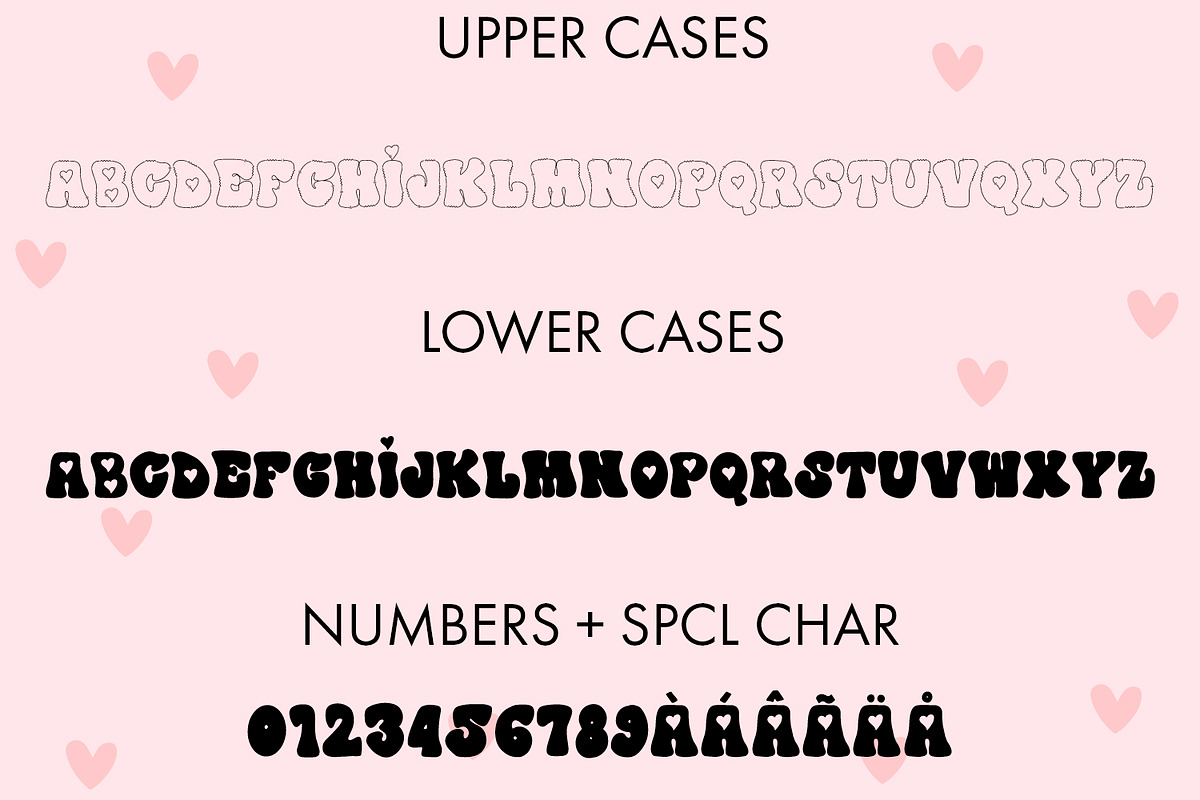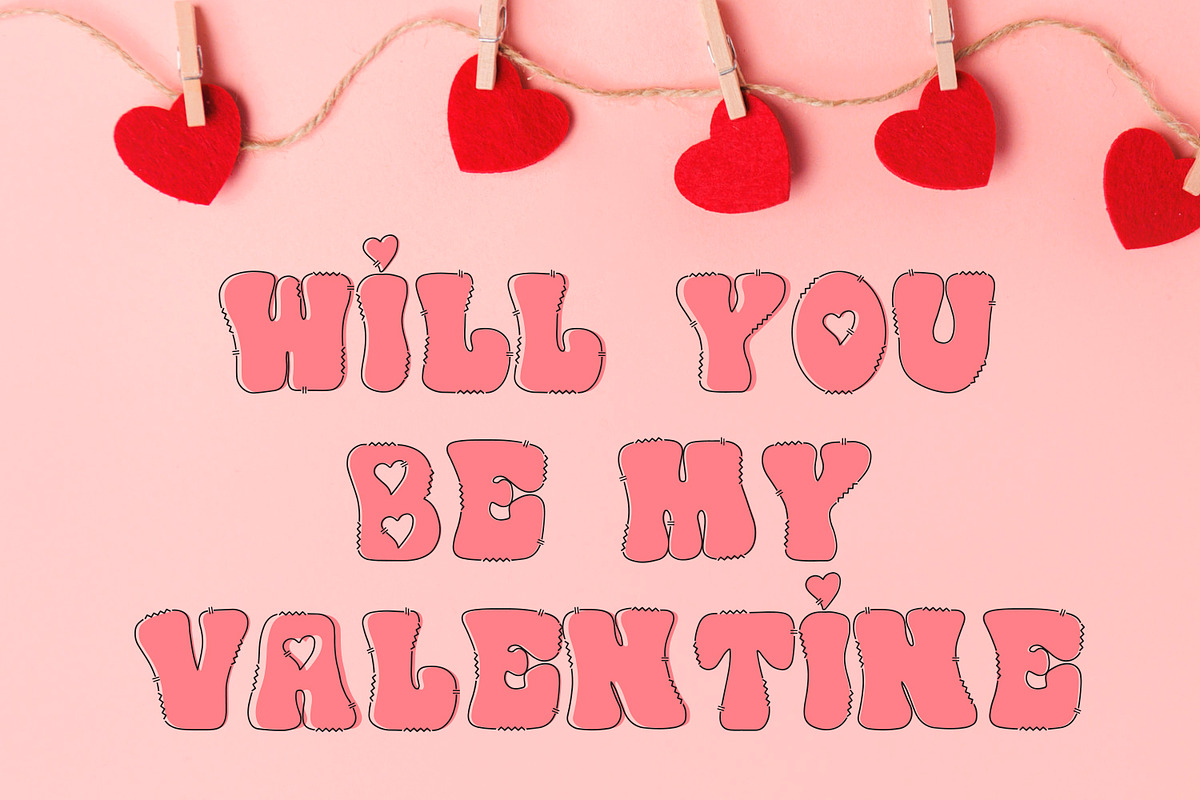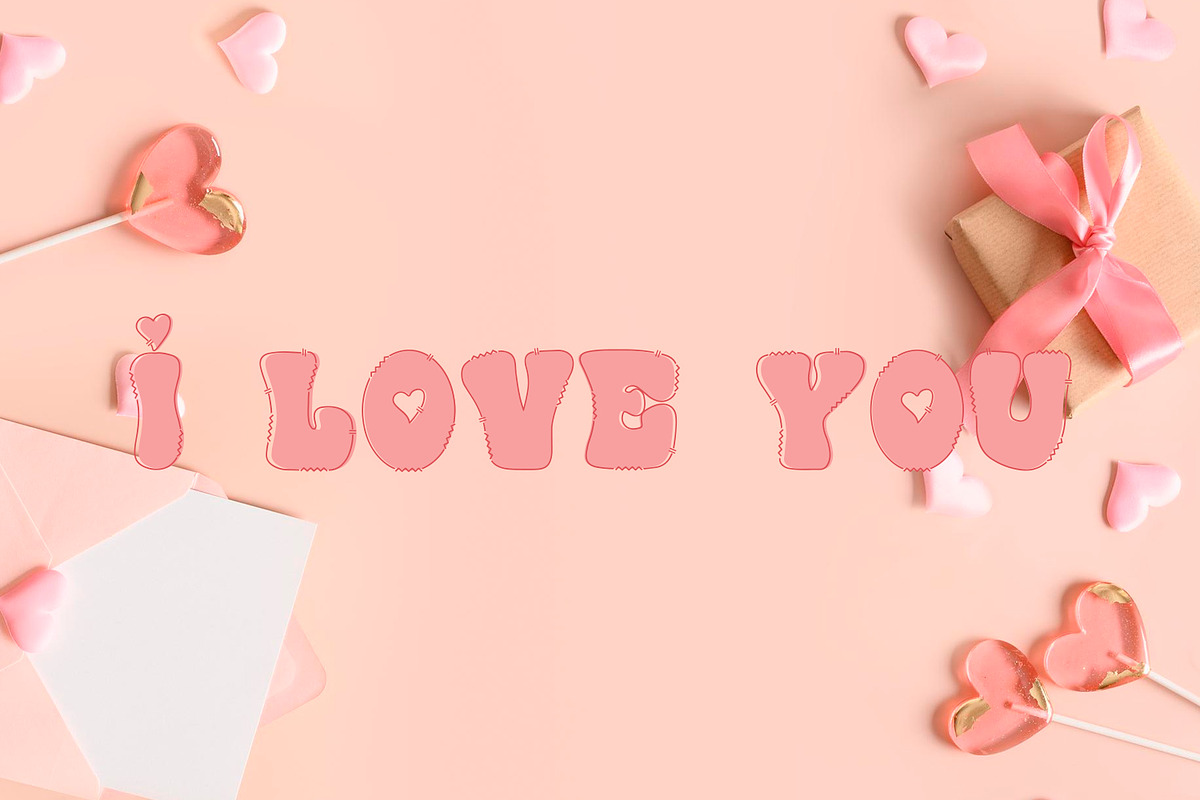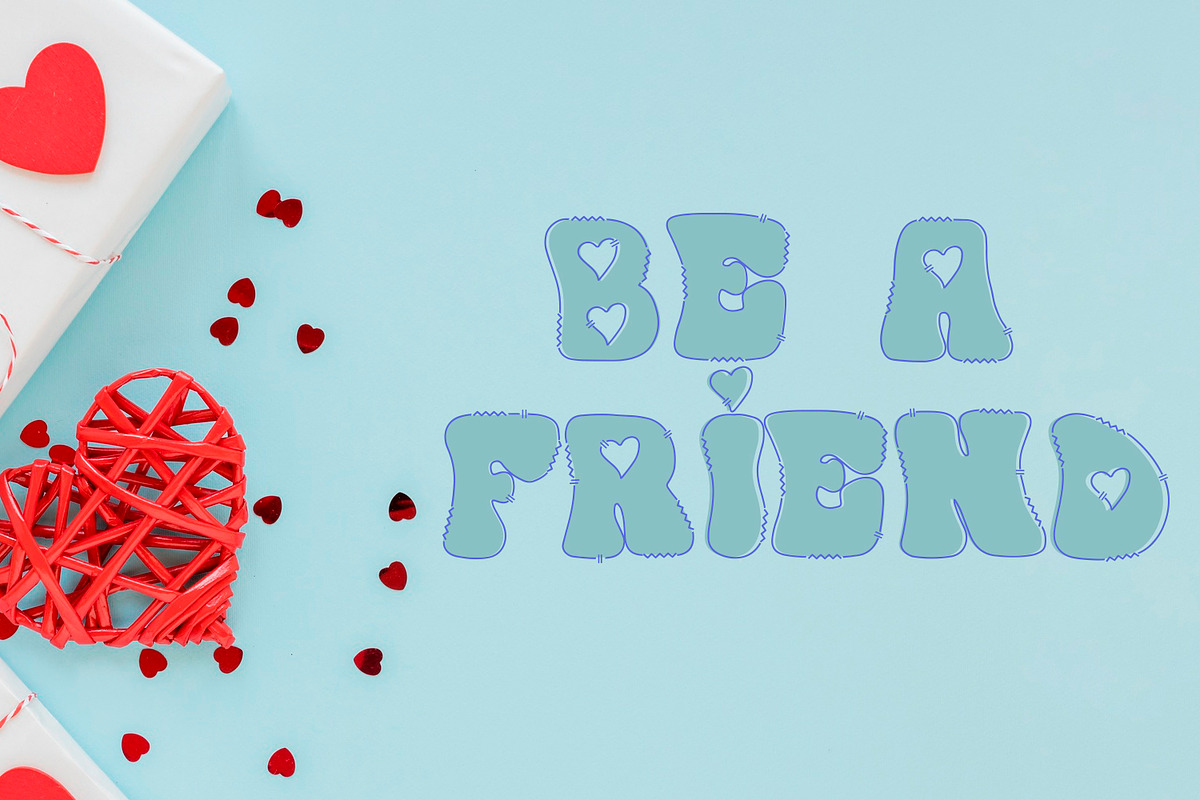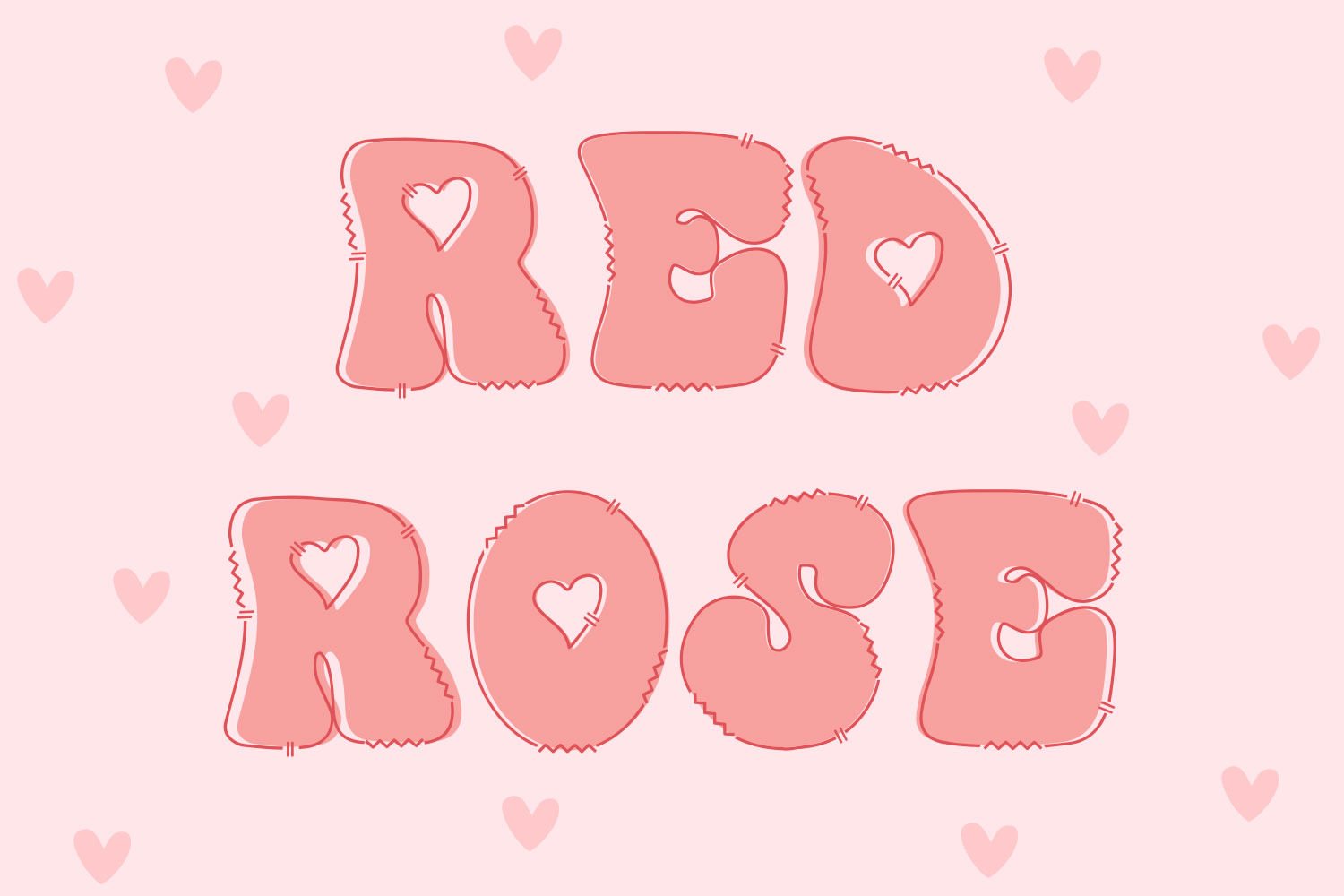
Red Rose Retro Valentine Font
Unlock creative nostalgia with our Retro Hearts Font Duo! This all-uppercase typeface brings a double dose of charm. The first style features chunky letters filled with delightful retro hearts, adding a touch of love to each character. The second style offers doodle strokes, allowing you to layer and customize your text with cool, hand-drawn accents. Elevate your designs with this versatile font duo, where love and creativity collide!